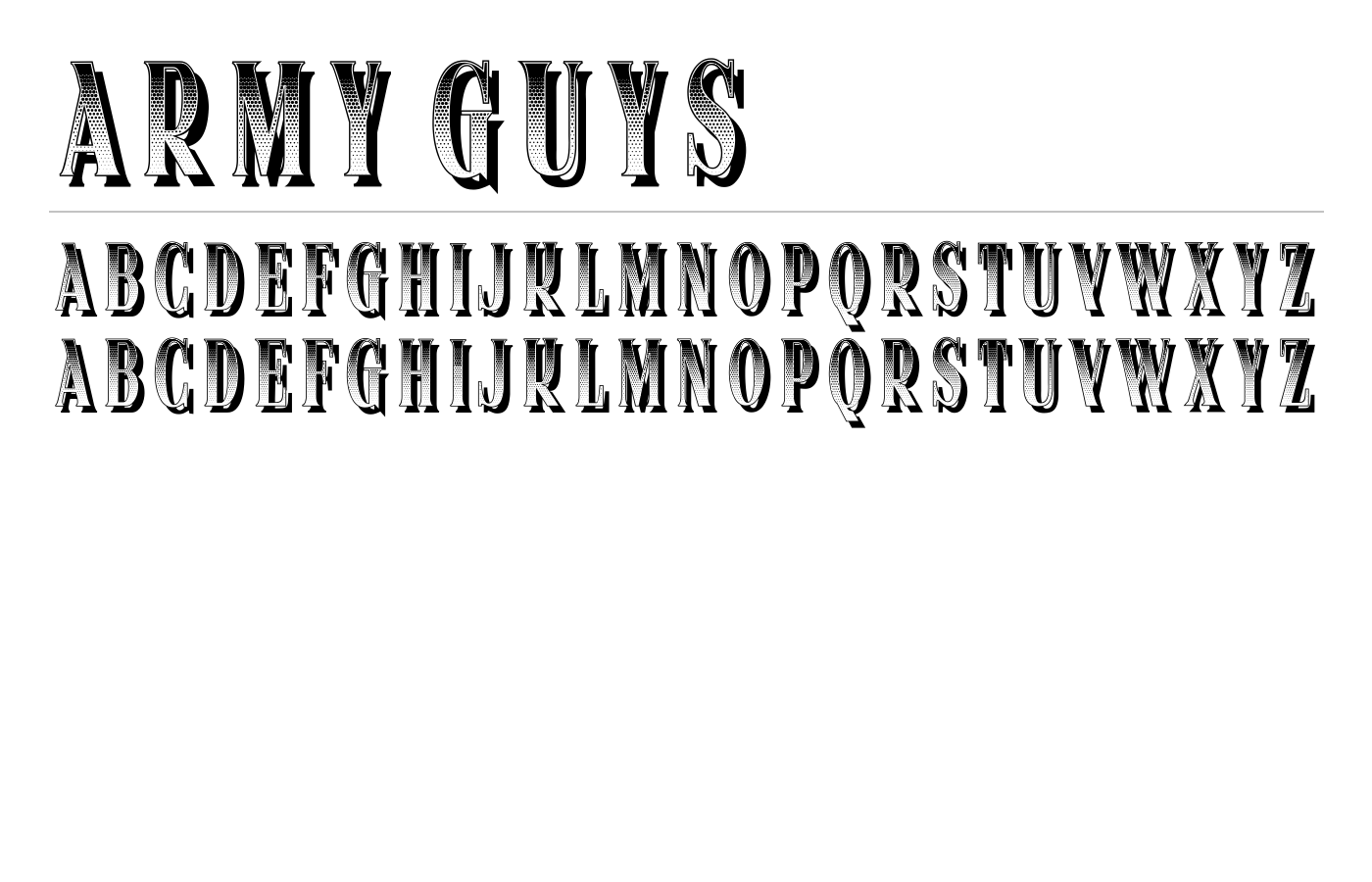
Army Guys is a bold, condensed serif font with a vintage military-inspired style, featuring strong vertical serifs and detailed shading that creates a three-dimensional, embossed effect. Its all-caps design and high contrast between thick and thin strokes give it an authoritative, classic feel, making it ideal for logos, posters, and branding that require a rugged, nostalgic touch with a commanding presence.
Army Guys Font
About Army Guys Font